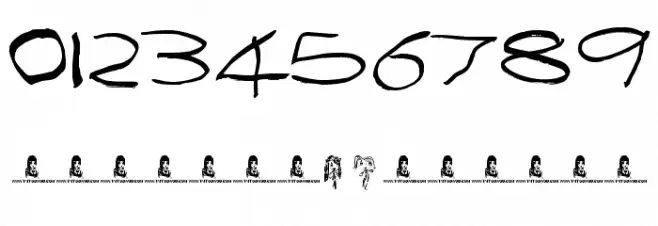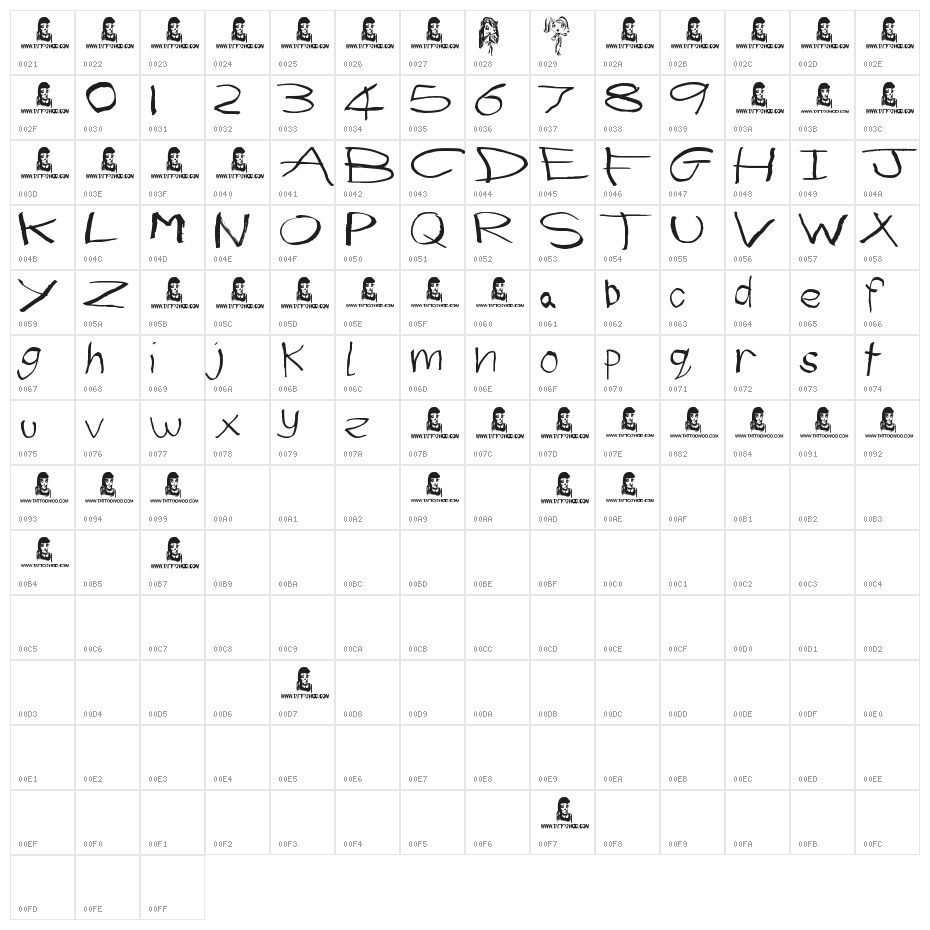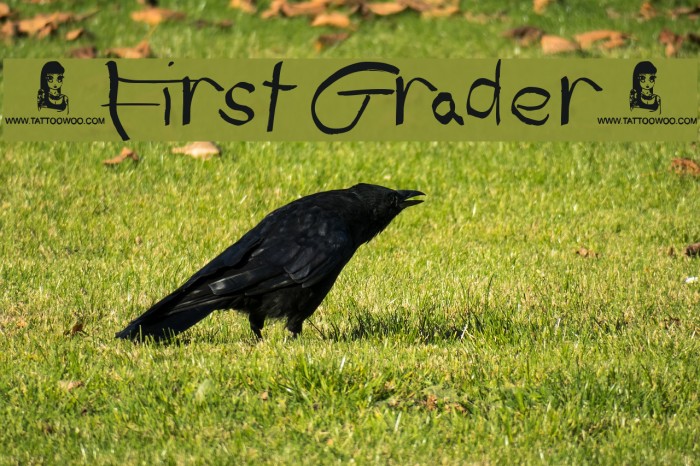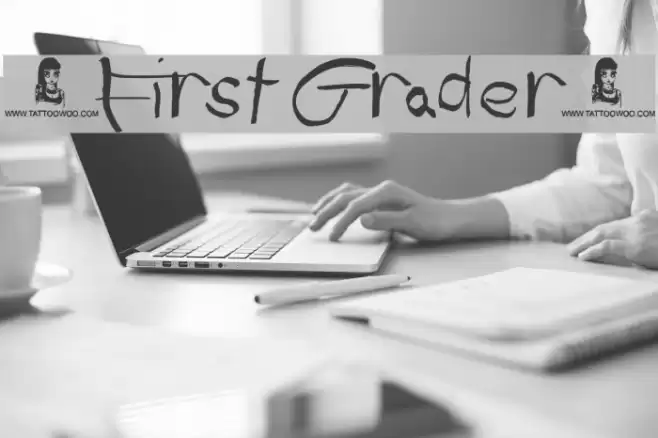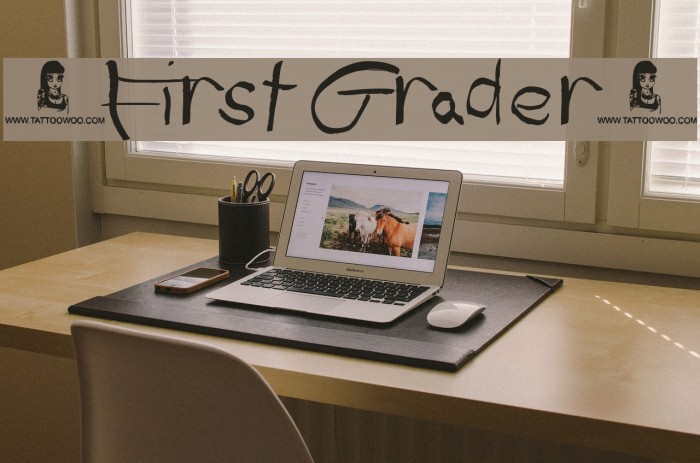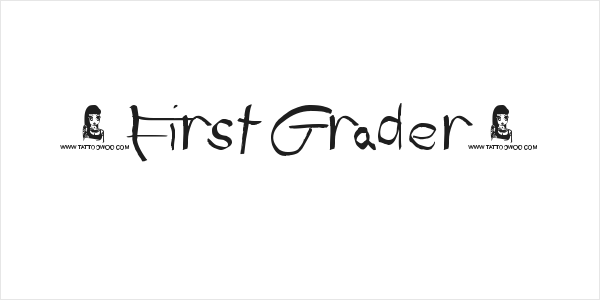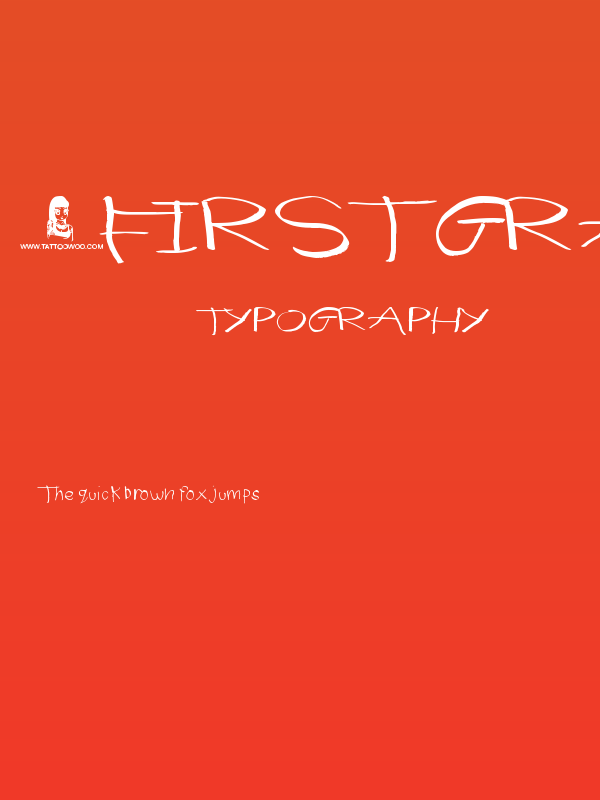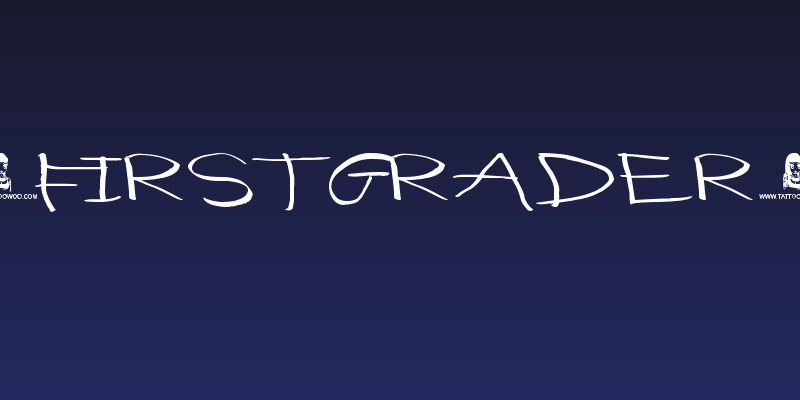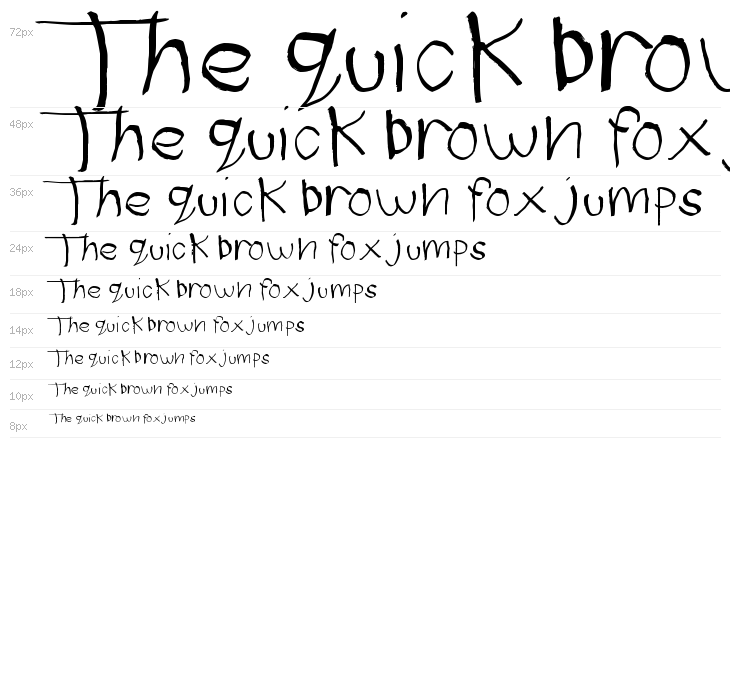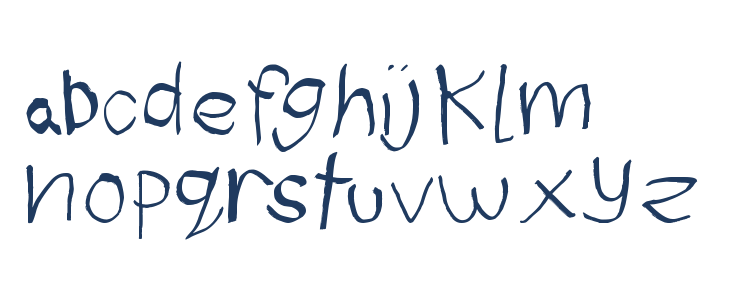
[First Grader] Font
[First Grader] Description
This font exudes a playful and whimsical charm, reminiscent of a child's handwriting. The letters are unevenly spaced and vary in size, giving it an informal and spontaneous feel. The strokes are irregular, with a mix of thick and thin lines that add to its quirky personality. The uppercase and lowercase letters maintain a consistent style, with a slight tilt that enhances its handwritten appearance. Numbers and special characters follow the same playful aesthetic, making it suitable for projects that require a touch of creativity and fun.
| Use Case | Headlines, Casual text, Creative projects |
| Proposed Projects | Ideal for children's books, playful branding, casual invitations, and creative posters. |